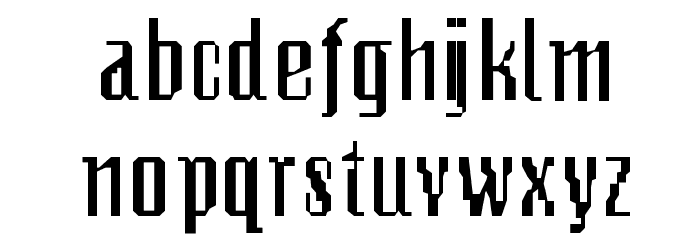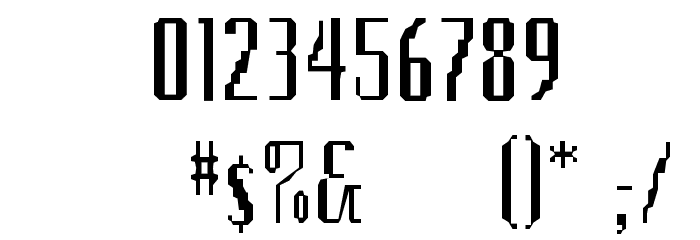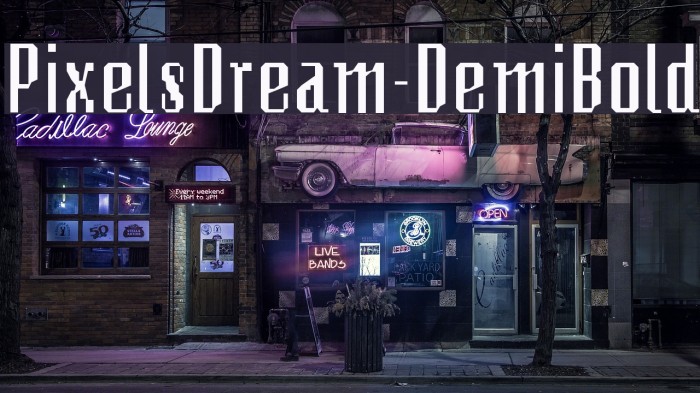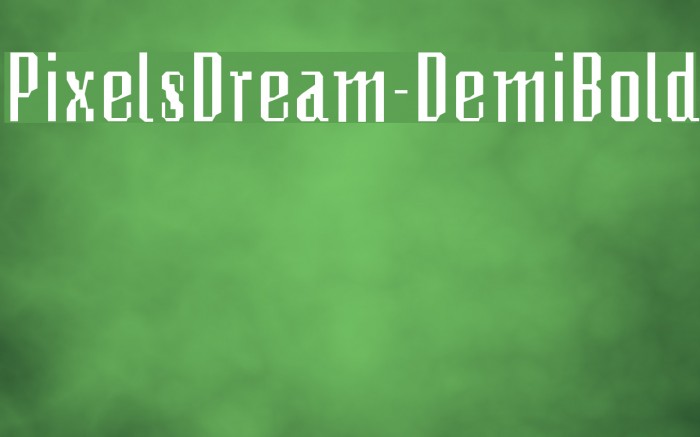
PixelsDream-DemiBold Font
This font features a unique, pixelated style that combines modern digital aesthetics with a bold presence. The characters are distinctly angular, with sharp edges and a blocky appearance that evokes a retro, video game-inspired look. The uppercase letters are tall and narrow, while the lowercase letters maintain a consistent height, creating a cohesive visual flow. Numbers and special characters follow the same design principles, ensuring uniformity across all glyphs. The font's geometric structure makes it ideal for projects that require a futuristic or tech-oriented theme.
A bold, pixelated font with a retro, digital aesthetic.
- Proposed Projects: Ideal for video game titles, tech-themed posters, digital art projects, and retro-style branding.